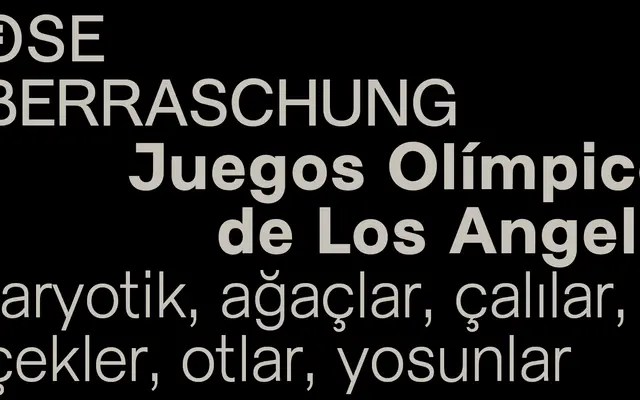
Marguerite Grotesk
Charlotte Rohde · Charlotte Rohde
A grotesque sans in four weights with matching italics, conceived around the character of Marguerite Gautier from Dumas's 'La Dame aux Camélias'.
Charlotte Rohde's Marguerite Grotesk draws its name and mood from the protagonist of Alexandre Dumas Jr's nineteenth-century novel, a courtisane navigating bourgeois society. The family runs across Light, Regular, Medium and Bold with corresponding italics, and supports extended Latin coverage for broad European language use. Several OpenType feature sets offer alternate forms for characters including J, the umlaut vowels and currency symbols.
Named 'Grotesk' by the designer; the upright and italic weights follow conventions of the grotesque sans tradition with a clean, restrained structure.